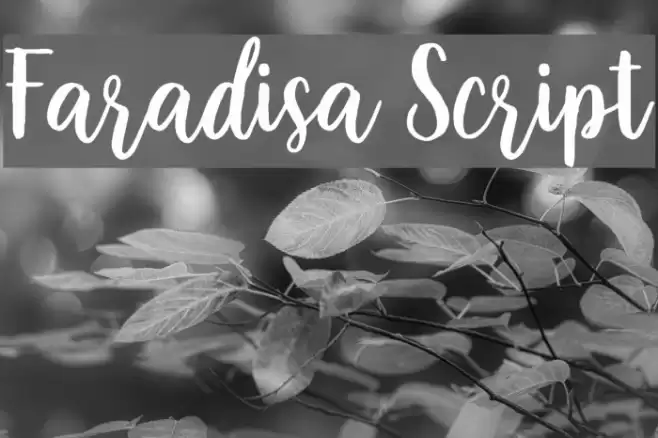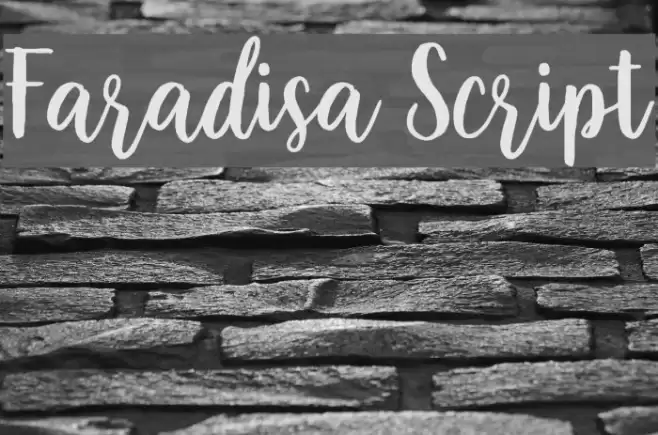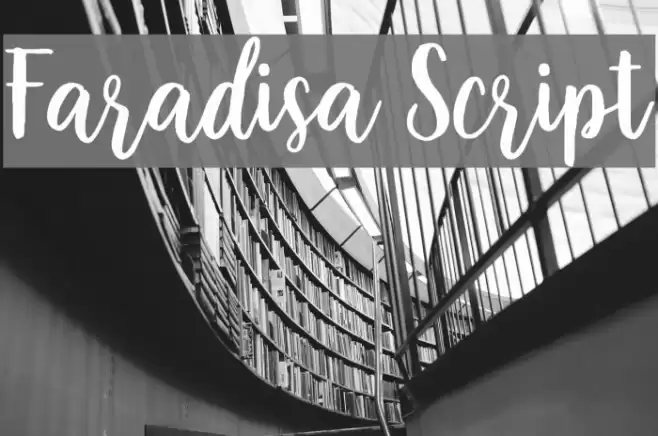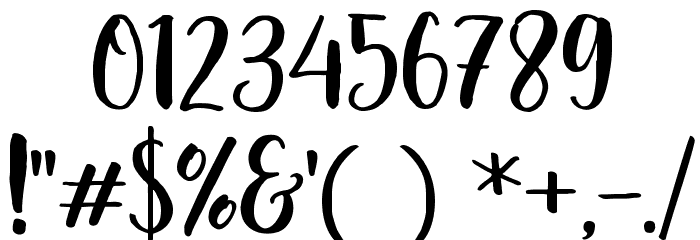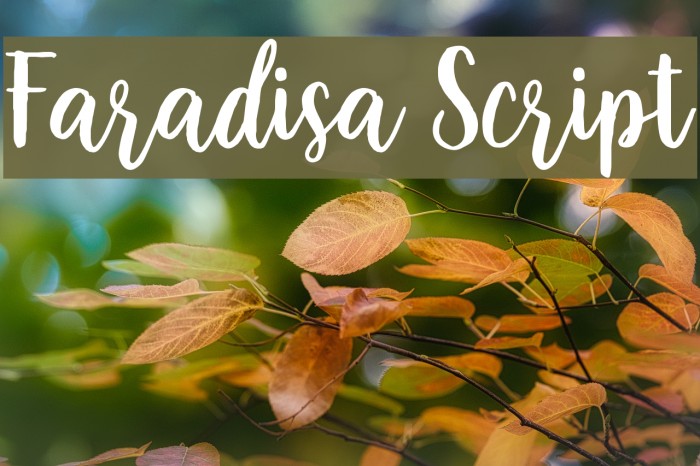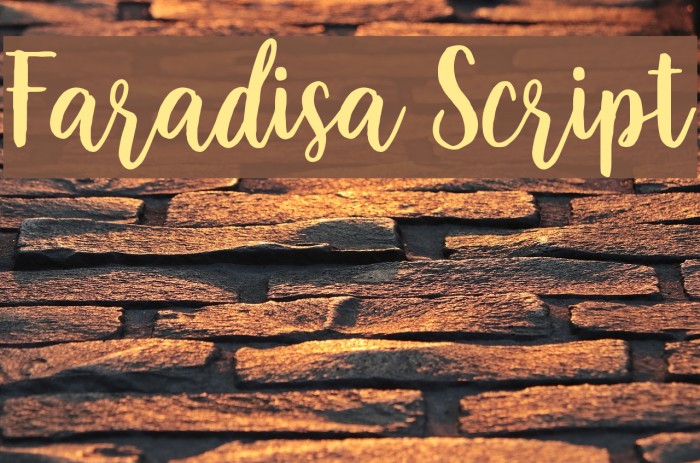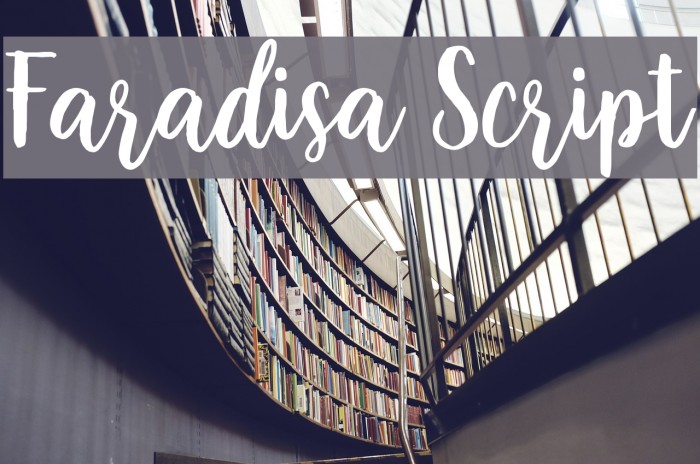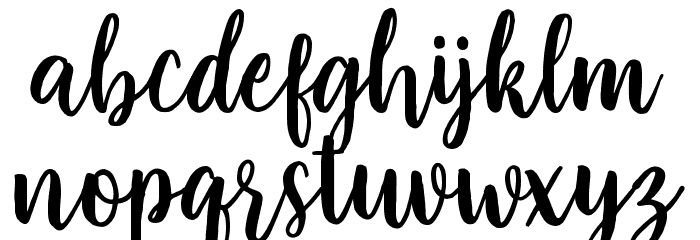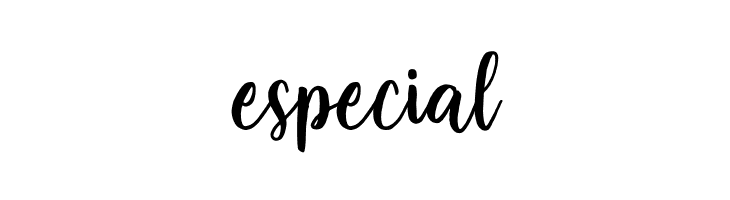
Faradisa Script Font
Faradisa Script Description
This font is a lively and expressive script typeface characterized by its fluid strokes and dynamic curves. The uppercase letters are bold and striking, with a playful yet elegant flair. The lowercase letters maintain a consistent flow, enhancing readability while retaining a handcrafted feel. Numbers are well-proportioned and align seamlessly with the overall style. Special characters are thoughtfully designed, adding versatility to the font's usage. The brush-like strokes give it a personal touch, making it ideal for creative projects.
A vibrant and expressive script font with fluid, brush-like strokes from Uncategorized fonts.
- Proposed Projects: Great for wedding invitations, greeting cards, branding, and social media graphics.
- Use Case: Logos, Headlines, Invitations